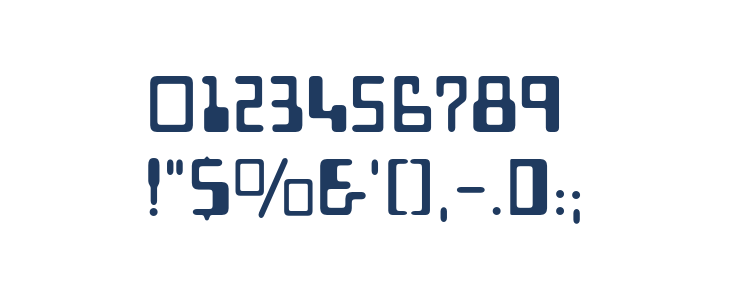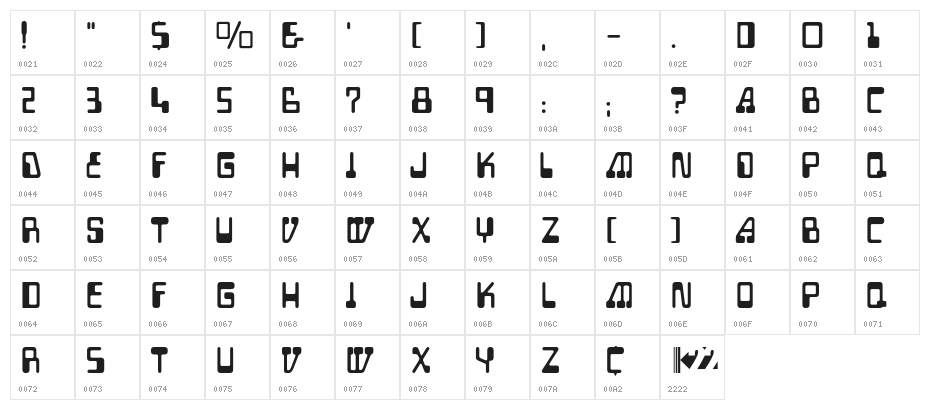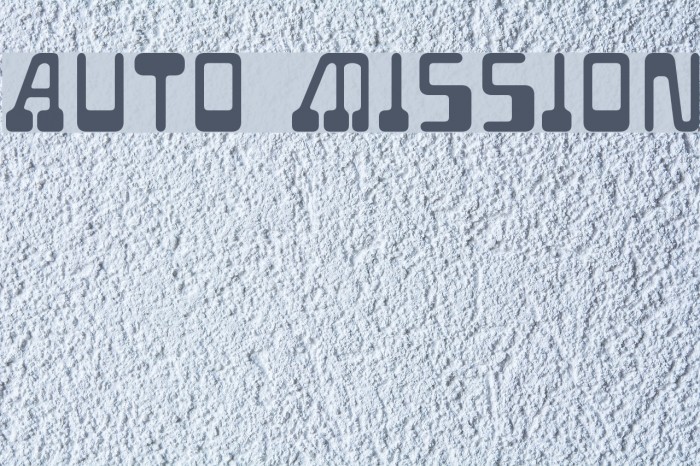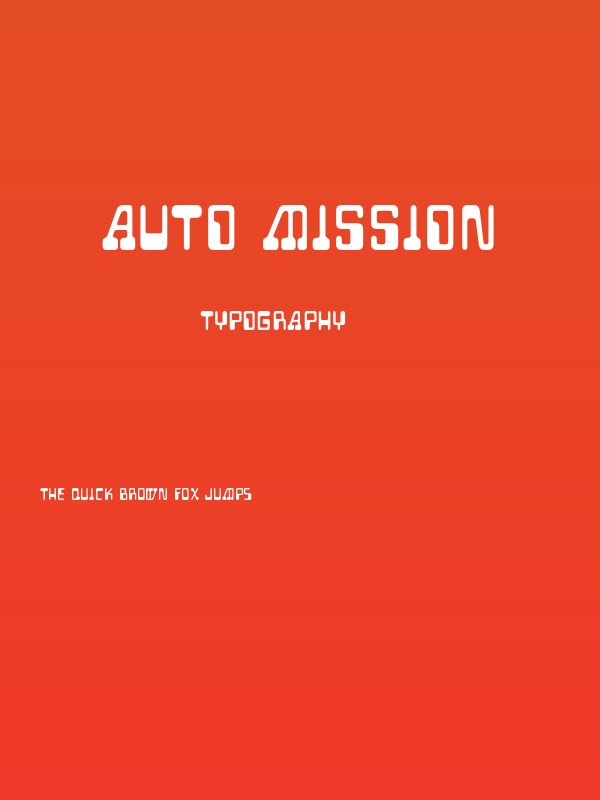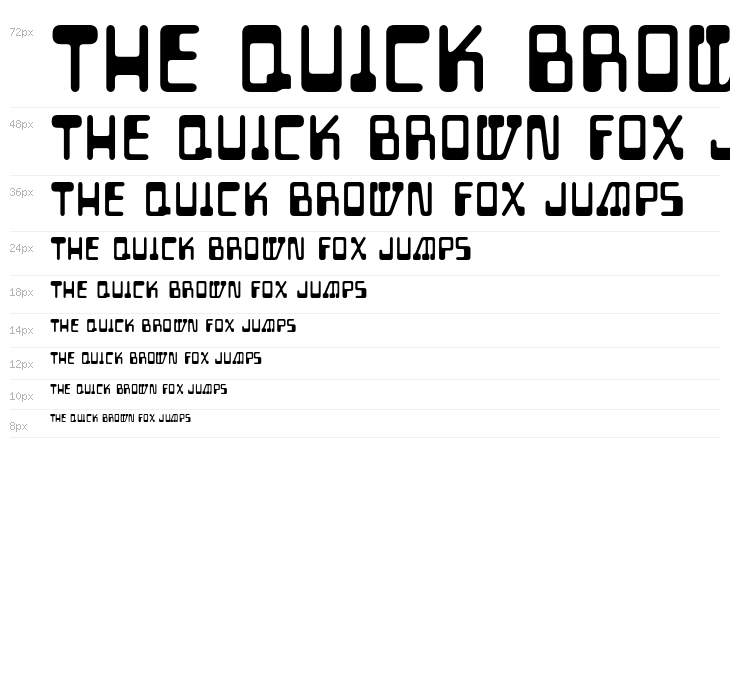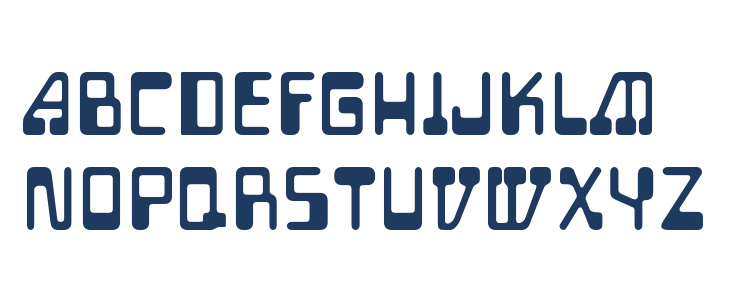
Auto Mission Font
Auto Mission Description
This font features a bold and futuristic design with a strong geometric influence. The characters are constructed with thick, block-like strokes that give them a sturdy and impactful appearance. The uppercase and lowercase letters share a consistent style, maintaining a uniformity that enhances readability despite the unique shapes. The numerals and special characters follow the same design principles, ensuring a cohesive look across all glyphs. The font's distinct style is reminiscent of digital or sci-fi themes, making it ideal for projects that require a modern and technological aesthetic.
| Proposed Projects | Ideal for sci-fi themed designs, technology branding, video game titles, and futuristic posters. |